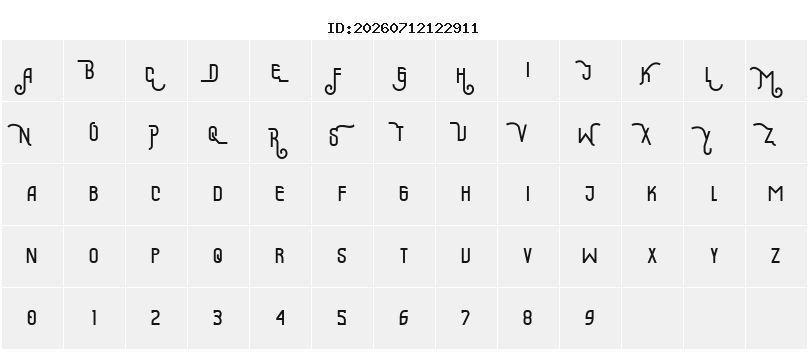
Maeninaja Preview
• Font Name: Maeninaja
• Font ID: Ramz: 2015
• Full Font Name: Maeninaja Regular
• PostScript Name: Maeninaja
• Character Count: 103
• Designer: Ramz
• Manufacturer: Ramz
About Maeninaja.ttf
Maeninaja.ttf is a modern, elegant sans-serif font designed for ultimate readability and visual harmony. Perfect for branding, headlines, web design, and print materials.